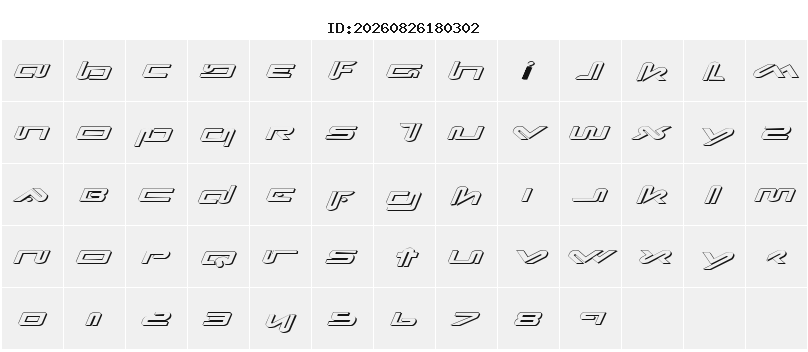
Xephyr Expanded Shadow Italic Preview
• Font Name: Xephyr Expanded Shadow Italic
• Font Style: Expanded Shadow Italic
• Font ID: Xephyr
• Full Font Name: Xephyr Expanded Shadow Italic
About Xephyr Expanded Shadow Italic.ttf
Xephyr Expanded Shadow Italic.ttf is a modern, elegant sans-serif font designed for ultimate readability and visual harmony. Perfect for branding, headlines, web design, and print materials.